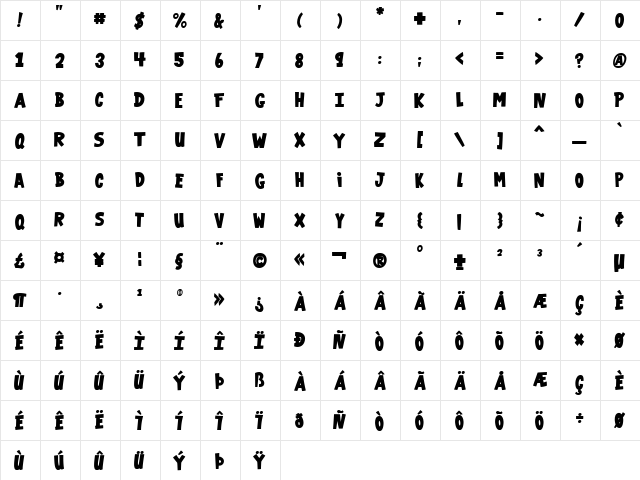
VTC-GarageSale Regular
| Designer | Larry E.Yerkes - Vigilante Typeface Corporation V.T.C. |
Design Context for VTC-GarageSale Typeface
VTC-GarageSale is a composed and adaptable typeface that performs quietly and consistently across a wide range of design contexts.